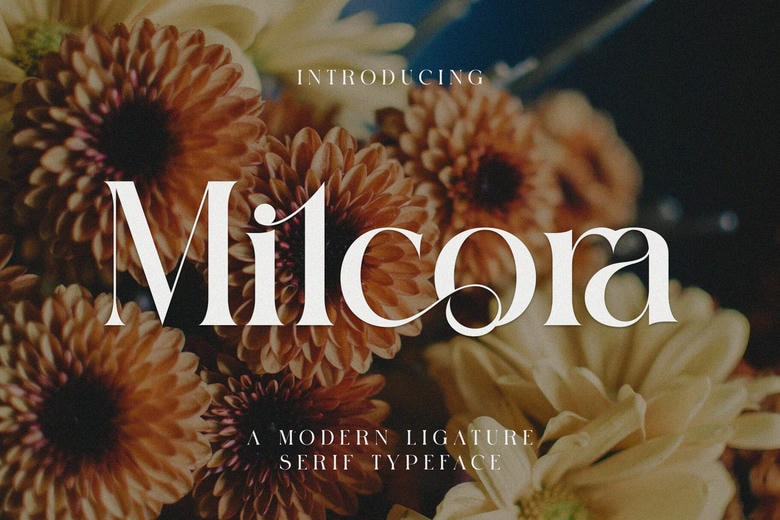
Milcora Font
Milcora is a modern serif font that inspired by fresh flowers beauty and timeless style. The discrete but powerful ligatures used in constructing this font make Milcora a beautiful and elegant font for women silhouettes. Suitable for luxury designs for flowers or clothing line or luxury brands, Milcora combines traditional serif fonts aesthetic with the contemporary vibes.
Each brushstroke is meaningful, delicate, and exquisite which is perfect for any flows or projects it is applied too. Get enriched and graceful work experience with the help of Milcora. Allow this font give your designs some flair, and see them come to life with class and distinction.
Milcora Serif Font